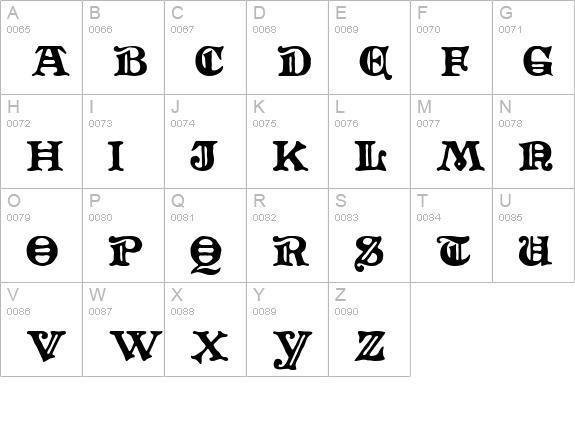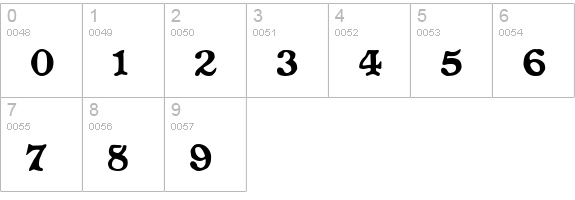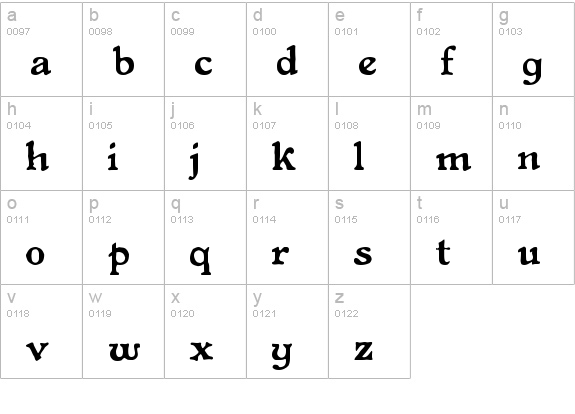
Altenglisch MF Font Details
Altenglisch MF font is a stunning display typeface that exudes a sense of medieval elegance and historical charm. Inspired by Old English calligraphy, this font features intricate details and ornate flourishes that make it perfect for adding a touch of sophistication to your designs. With its antique aesthetic and timeless appeal, Altenglisch MF font is sure to make a bold statement in any project. Best of all, Altenglisch MF font is completely free to download at FontsMarket.com. Whether you're working on a vintage-inspired poster, a classic wedding invitation, or a historical book cover, this font is a versatile choice that will bring a touch of old-world charm to your designs. Don't miss out on the opportunity to add Altenglisch MF font to your font collection today!